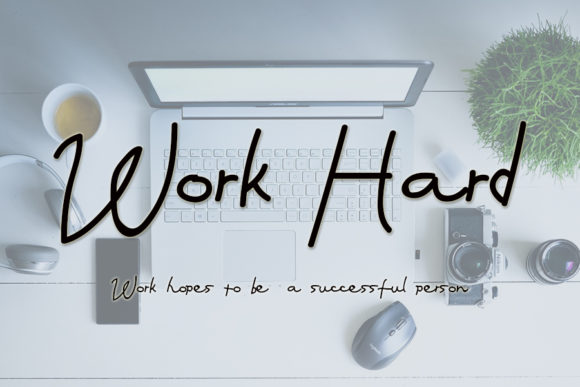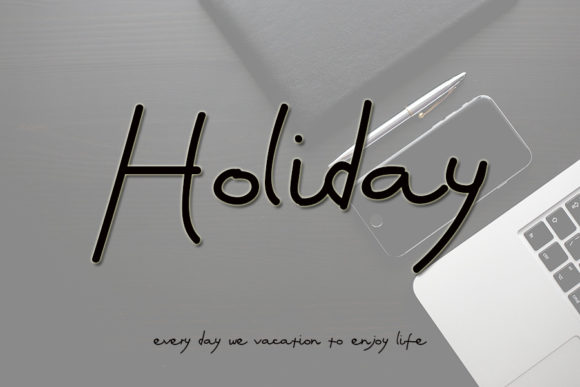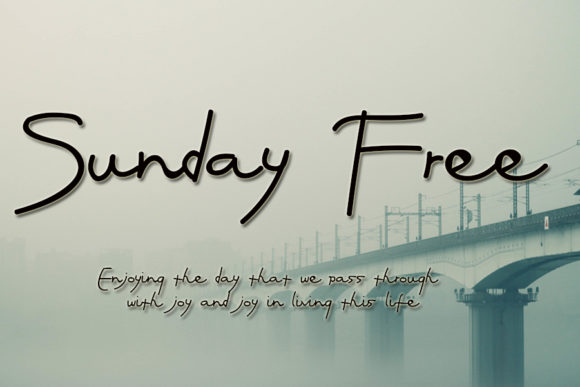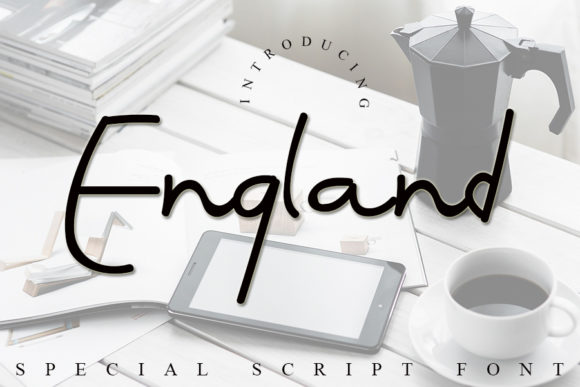
Discover the Charm of England Font: A Simple yet Elegant Handwritten Script
Are you tired of using the same old fonts for your design projects? Look no further than the England Font, a beautiful and versatile handwritten script that is sure to add a touch of romance and elegance to your work. In this article, we’ll take a closer look at the England Font, its features, and how you can use it to take your designs to the next level.
What is England Font?
England Font is a simple and neat handwritten font that is perfect for a wide range of design applications. Its clean and elegant lines make it an excellent choice for projects that require a touch of sophistication and romance. Whether you’re designing greeting cards, headlines, or any other type of project, England Font is guaranteed to add a special something that sets it apart from the rest.
Key Features of England Font
So, what makes England Font so special? Here are just a few of its key features:
- Simple and Neat: England Font has a clean and uncluttered design that makes it easy to read and understand.
- Handwritten Script: The font has a beautiful handwritten feel that adds a touch of personality and elegance to your designs.
- Versatile: England Font can be used for a wide range of design applications, from greeting cards to headlines and more.
- Romantic Feel: The font has a romantic and sophisticated feel that is perfect for projects that require a touch of elegance.
How to Use England Font in Your Designs
England Font is an incredibly versatile font that can be used in a wide range of design applications. Here are just a few ideas to get you started:
- Greeting Cards: England Font is perfect for designing beautiful and elegant greeting cards for special occasions like weddings, anniversaries, and birthdays.
- Headlines: The font’s clean and elegant lines make it an excellent choice for headlines and titles.
- Logos: England Font can be used to create beautiful and sophisticated logos for businesses and brands.
- Social Media Graphics: The font is also perfect for designing social media graphics, such as Facebook posts, Instagram stories, and more.
Tips for Getting the Most Out of England Font
Here are a few tips for getting the most out of England Font:
- Experiment with Different Sizes: England Font looks great in a variety of sizes, so don’t be afraid to experiment and find the perfect size for your project.
- Pair it with Other Fonts: The font pairs well with a wide range of other fonts, so try pairing it with some of your favorite fonts to create a unique and interesting look.
- Use it for Body Text: While England Font is perfect for headlines and titles, it can also be used for body text to create a beautiful and elegant reading experience.
In conclusion, England Font is a beautiful and versatile handwritten script that is perfect for a wide range of design applications. Its simple and neat design, combined with its elegant and romantic feel, make it an excellent choice for designers and crafters looking to add a touch of sophistication to their work. Whether you’re designing greeting cards, headlines, or any other type of project, England Font is guaranteed to take your designs to the next level.